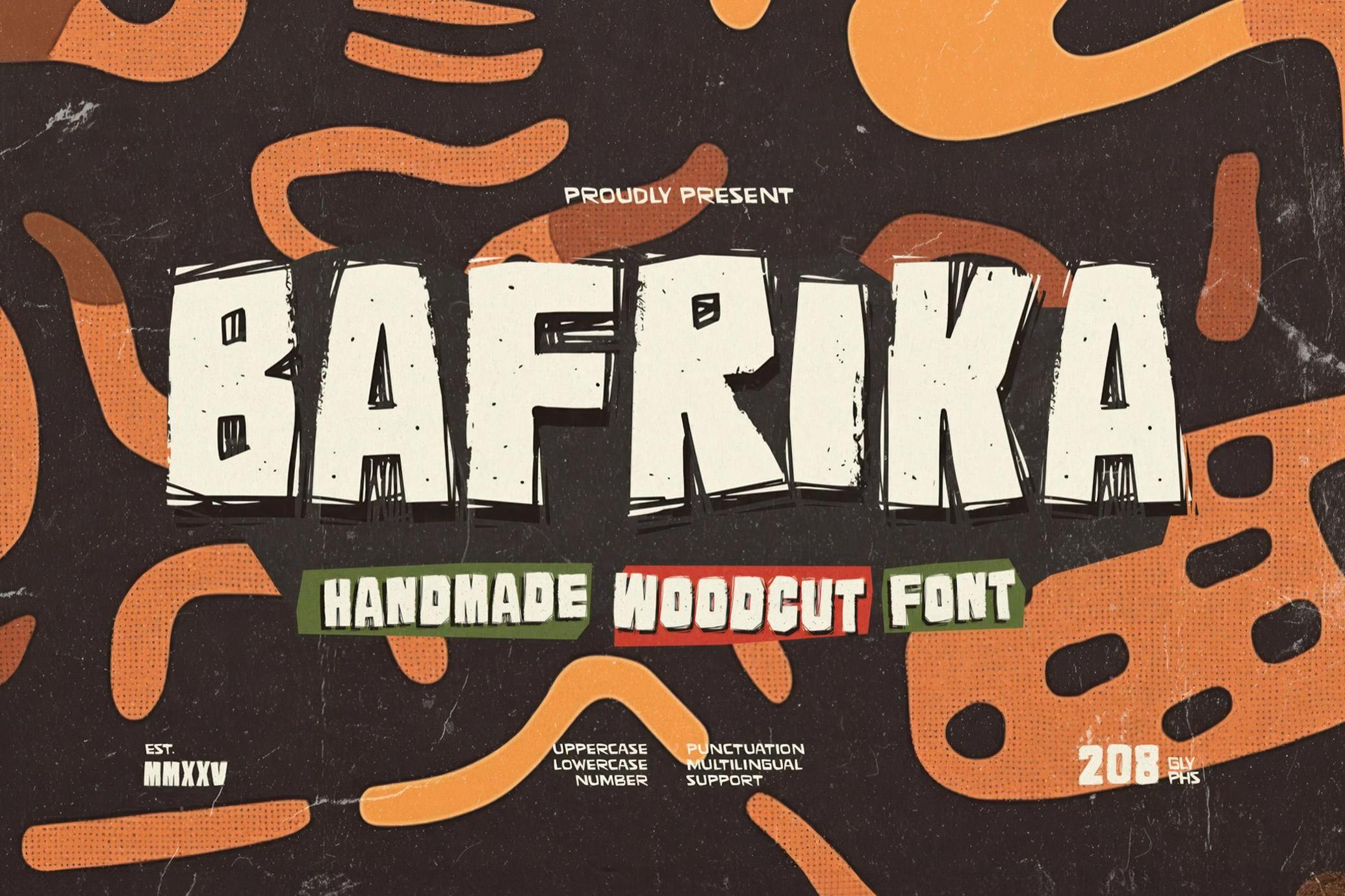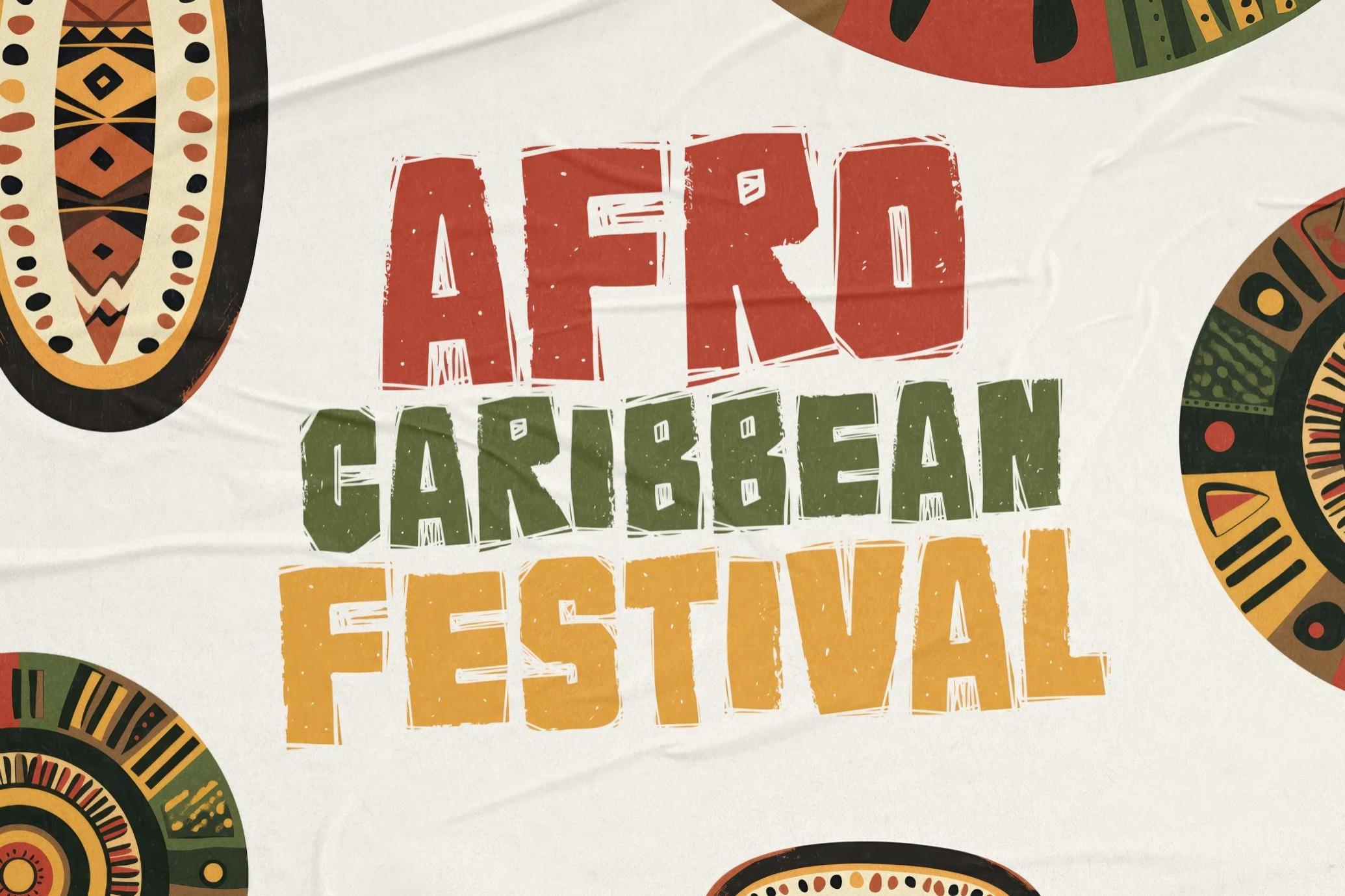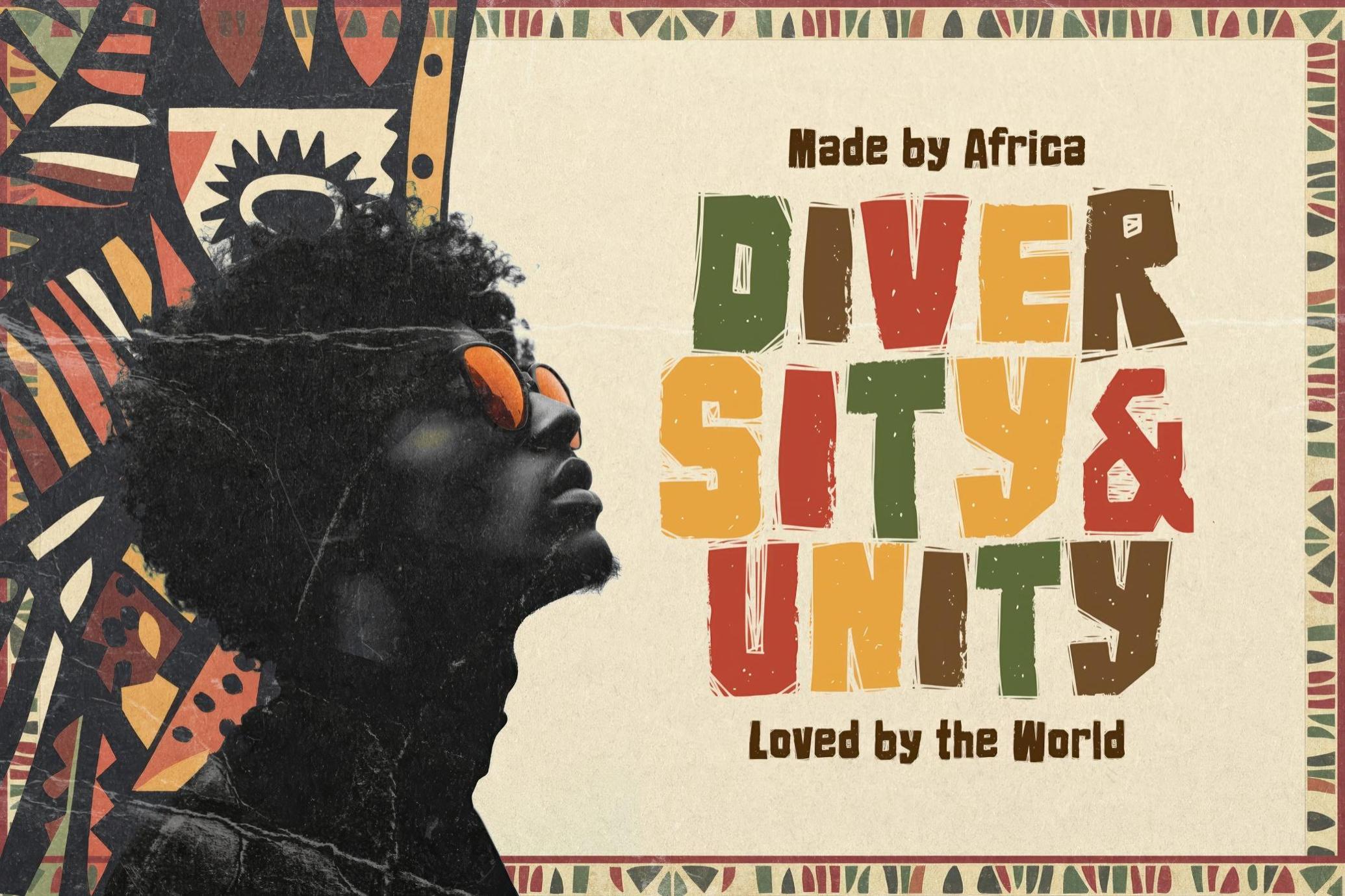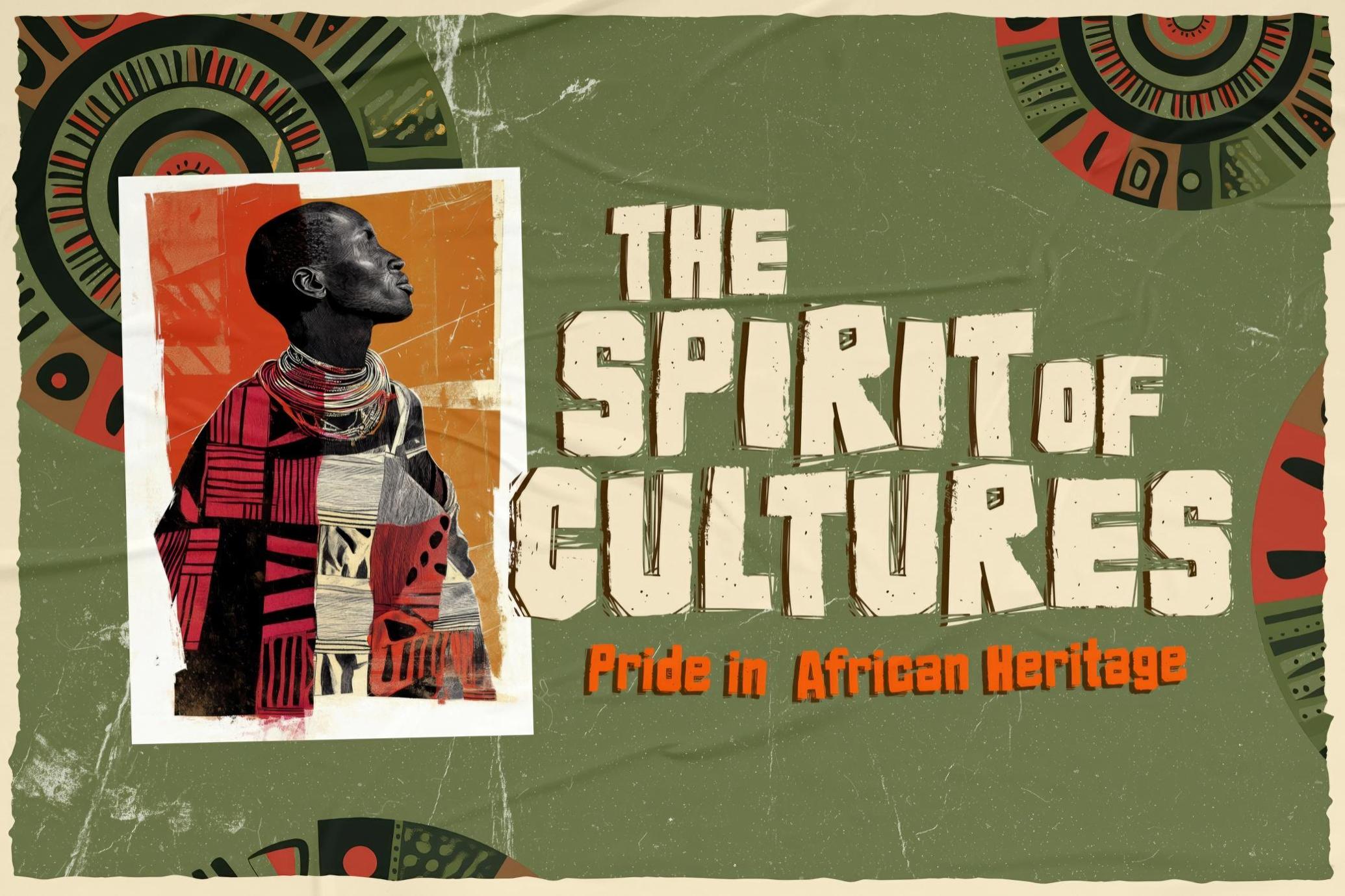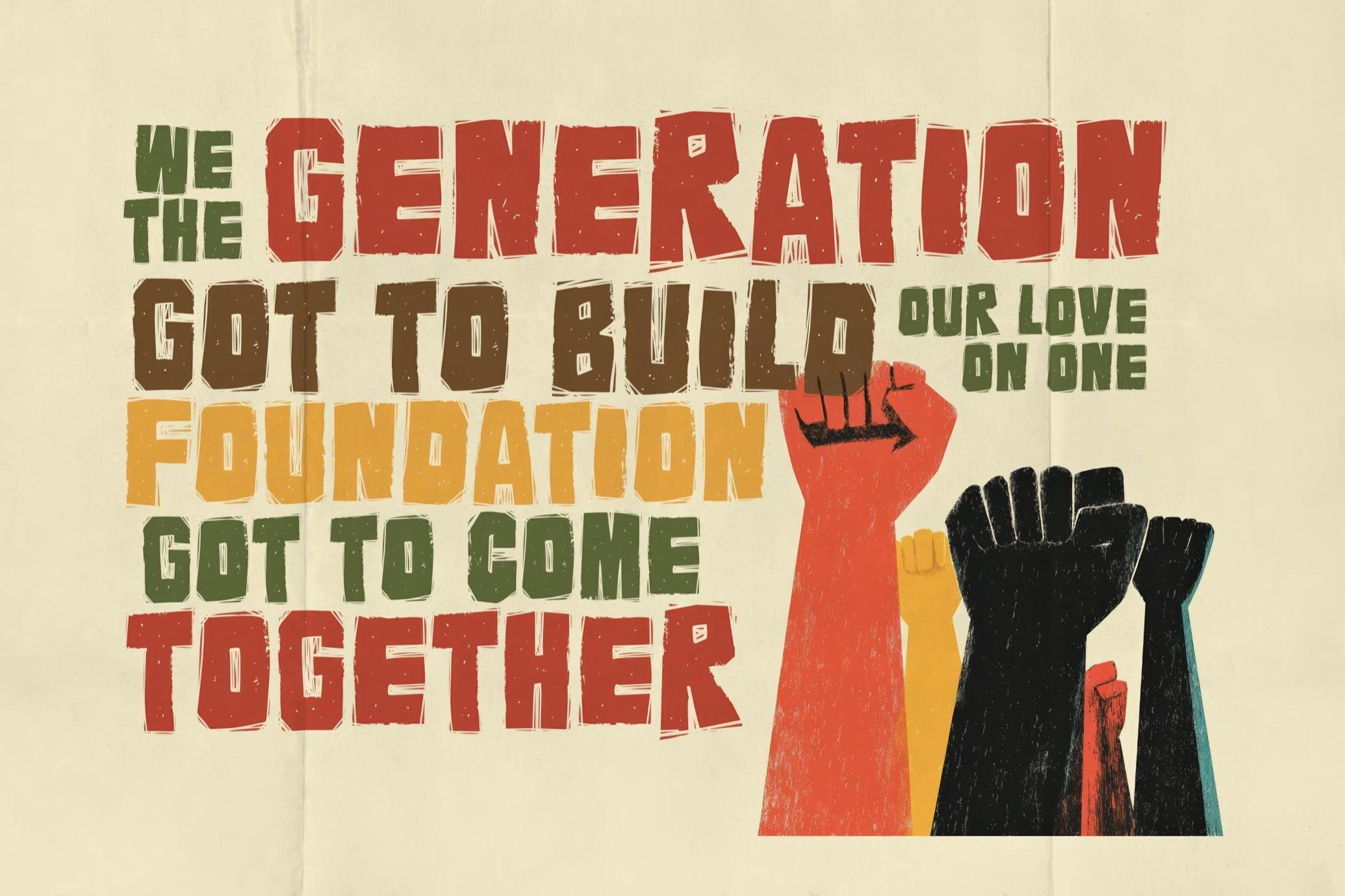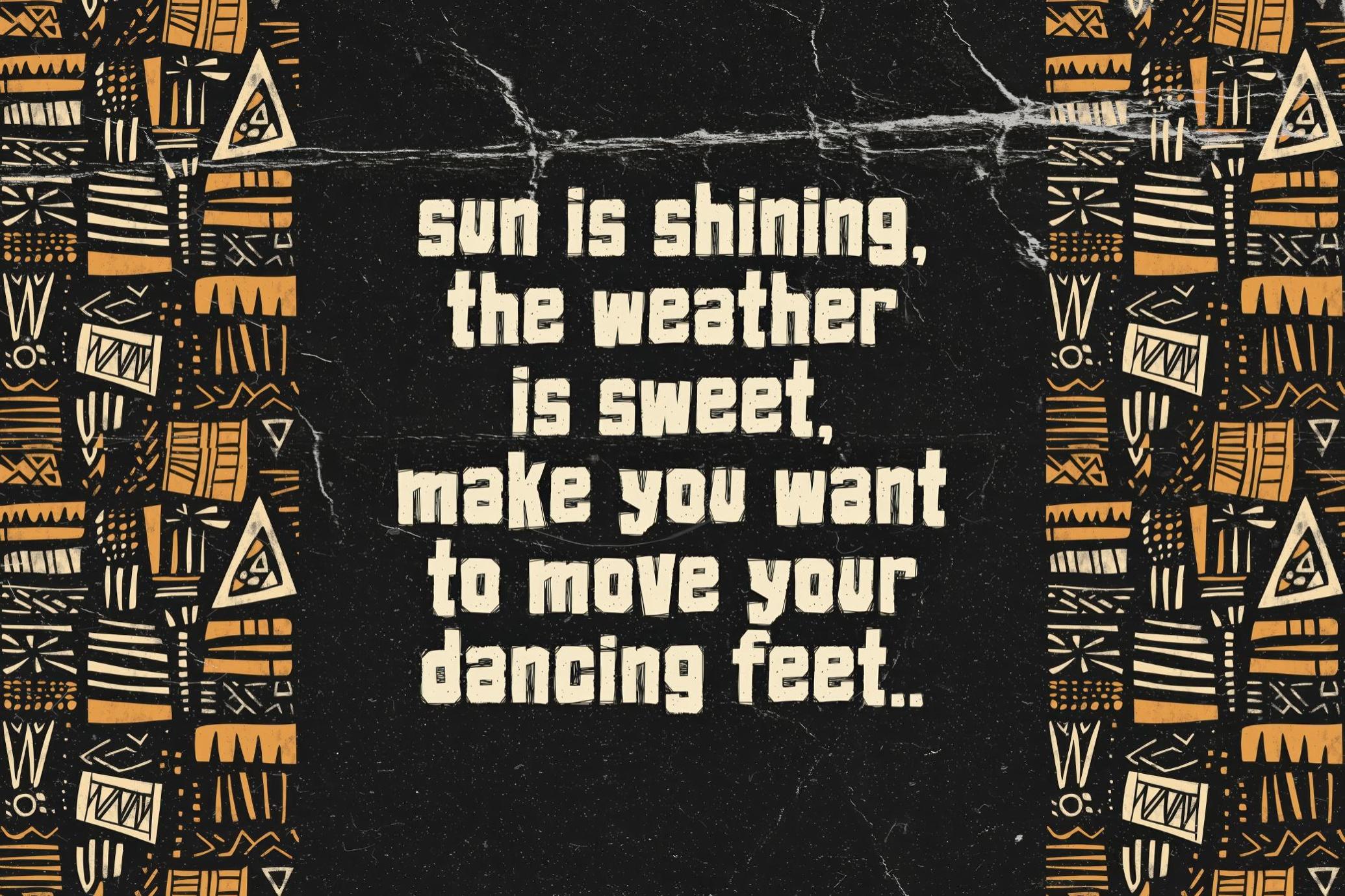
Bafrika — Handmade Woodcut Font
Bafrika is a bold, hand-carved display font rooted in the spirit of traditional African artistry. Each letter carries the energy of woodcut technique — rough edges, imperfect strokes, and a raw texture. Bafrika celebrates the beauty of the irregular and the handmade. It draws from tribal forms, storytelling symbols, and indigenous visual rhythms to deliver a typeface full of presence and cultural weight.
Best suited for Afrocentric branding, heritage-themed apparel, natural product packaging, festival posters, music artwork, handmade goods, and editorial layouts that lean into authenticity and craft. The font includes 209 glyphs: uppercase and lowercase characters, numerals, punctuation, and multilingual support.